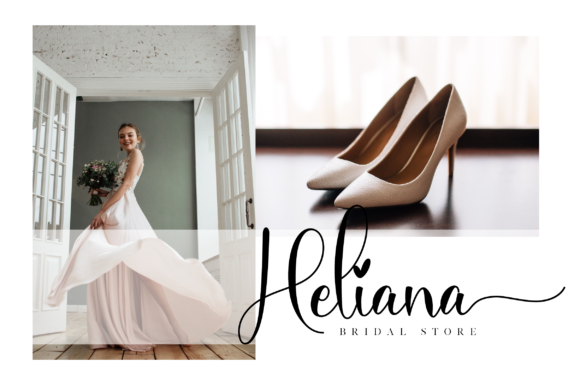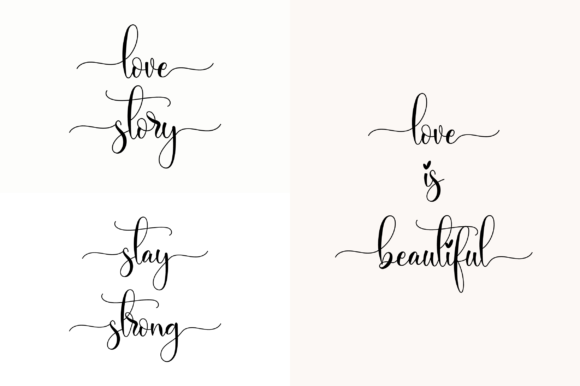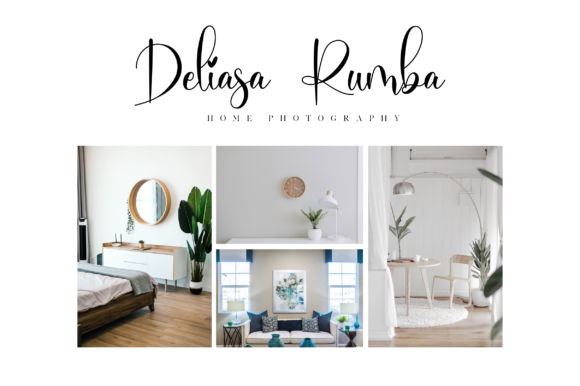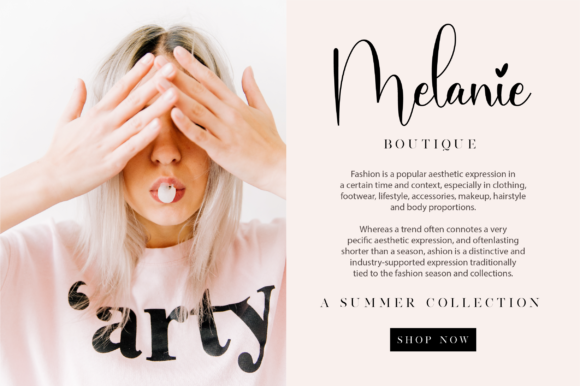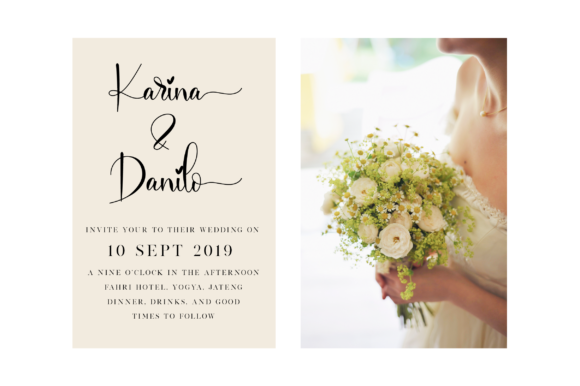
Introduction to Rosaliana Script Font
Rosaliana is a beautiful script font.
It has a classy, elegant, and modern look which can be used for logos, branding, invitations, stationery, wedding designs, social media posts, and every other design in need of a handwritten touch .
Key Features of Rosaliana Script Font
Why Choose Rosaliana Script Font?
Rosaliana Script Font offers exceptional quality and versatility, making it a valuable addition to your design toolkit. Whether you’re creating for personal projects or commercial use, Rosaliana Script Font delivers professional results.